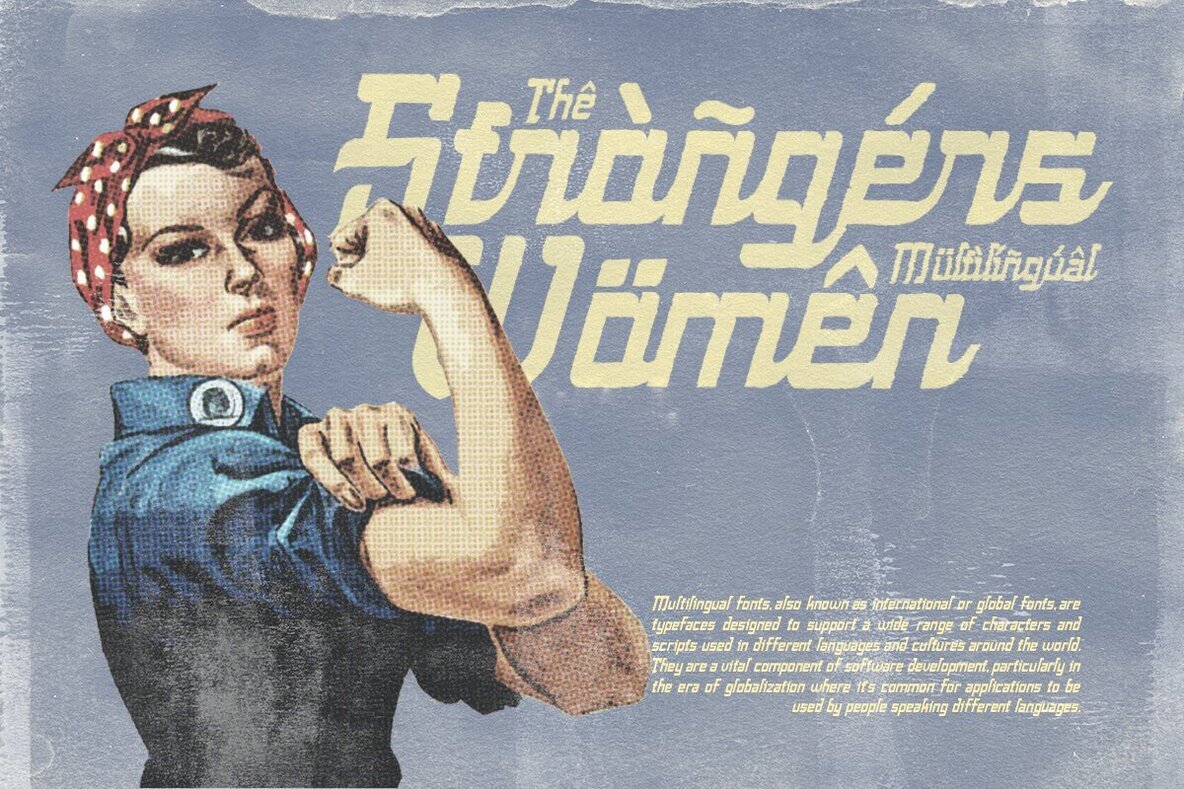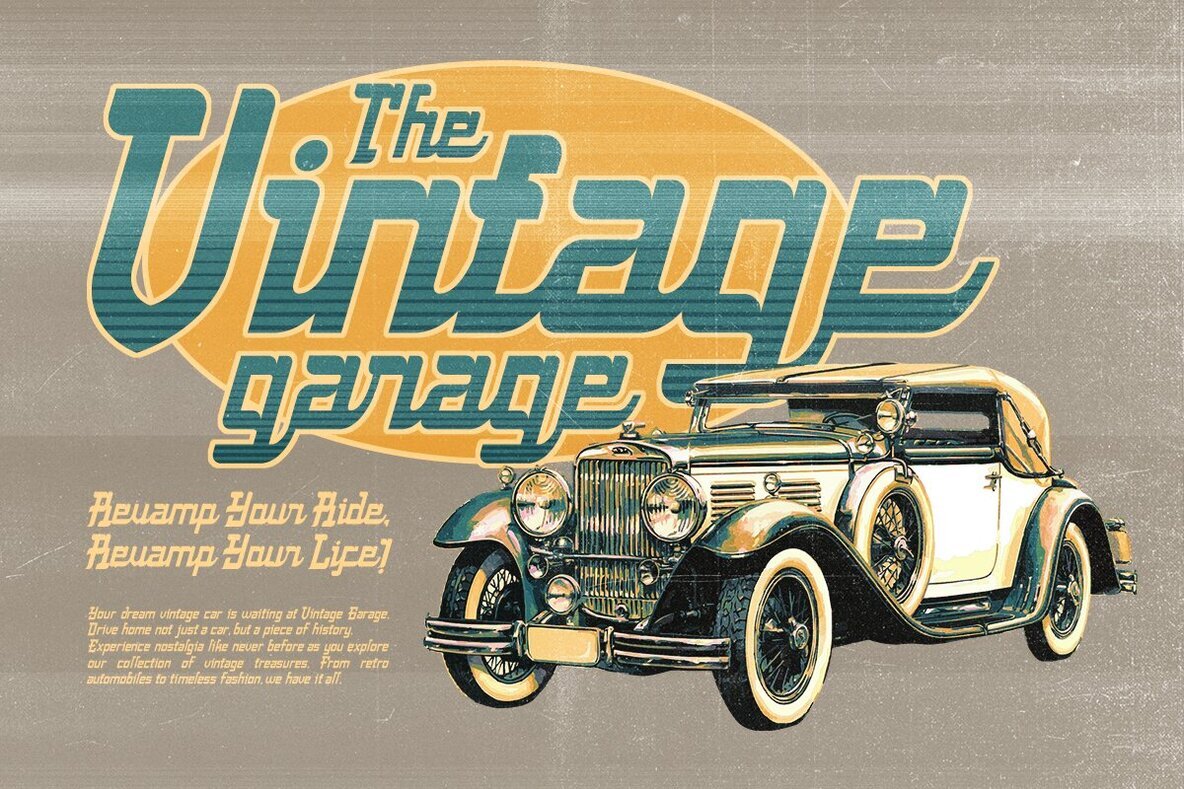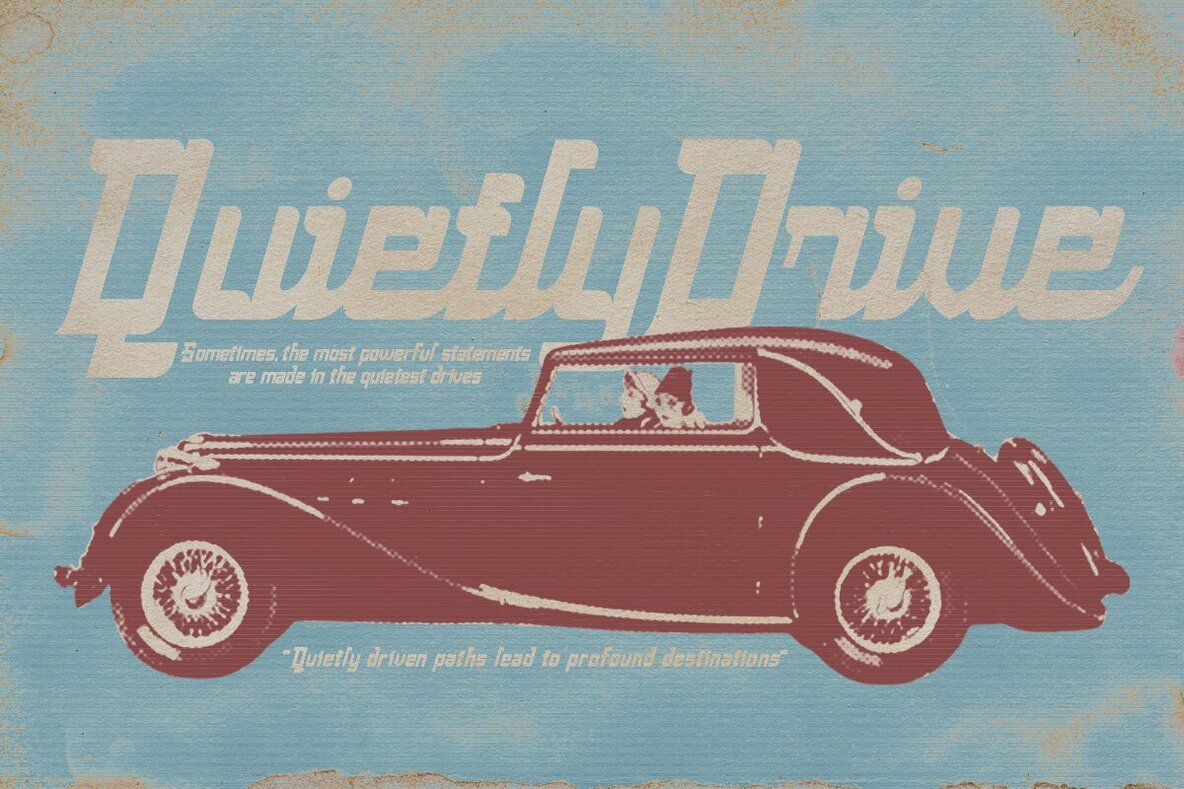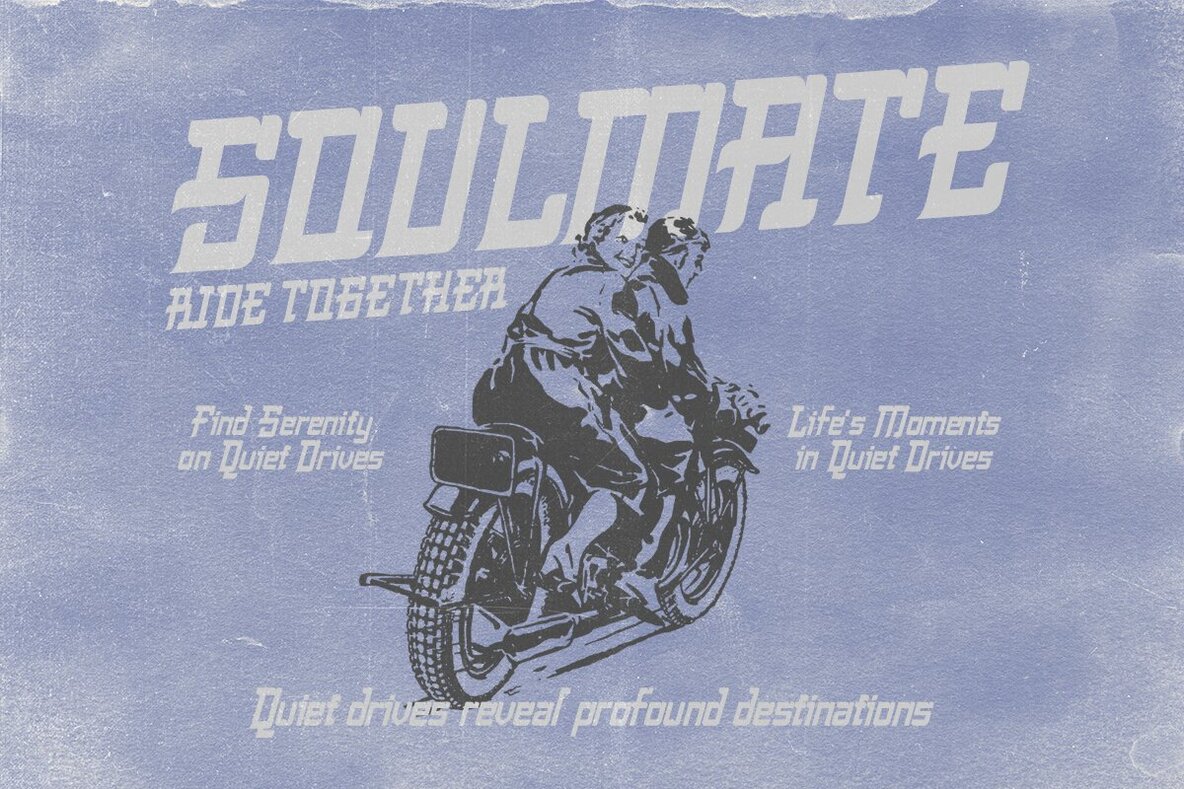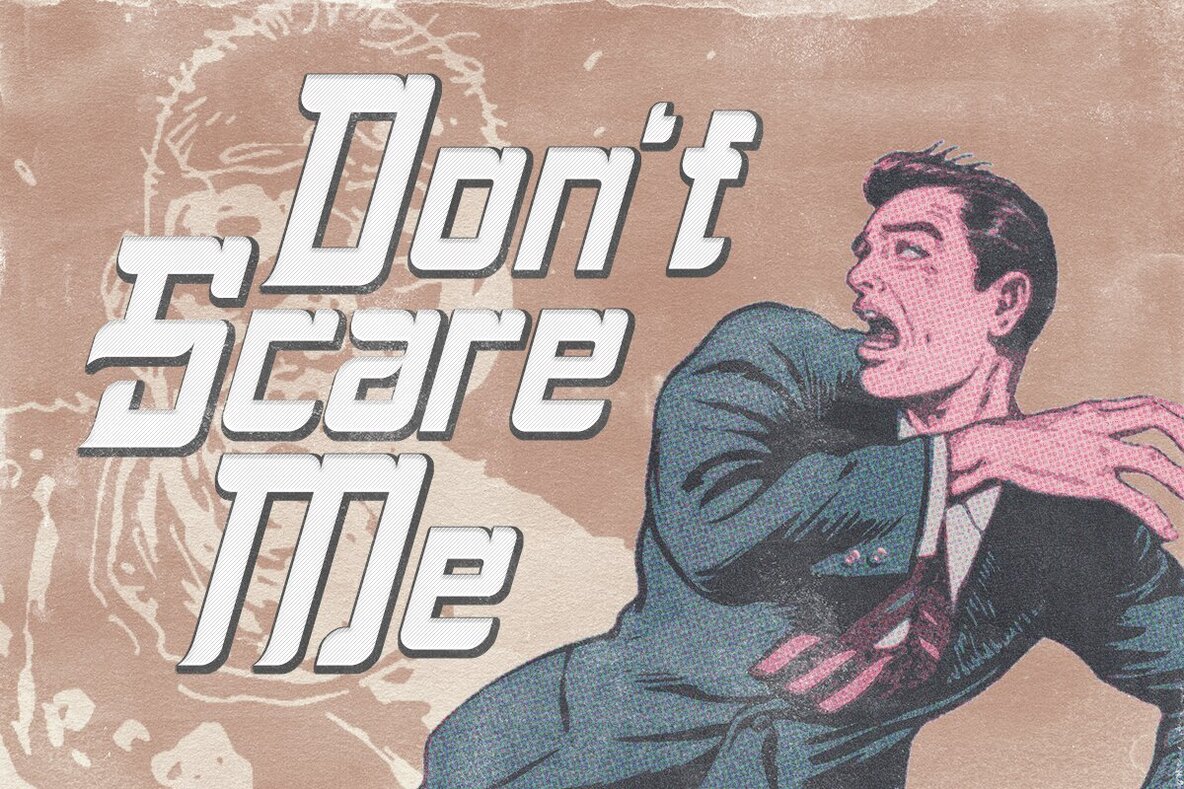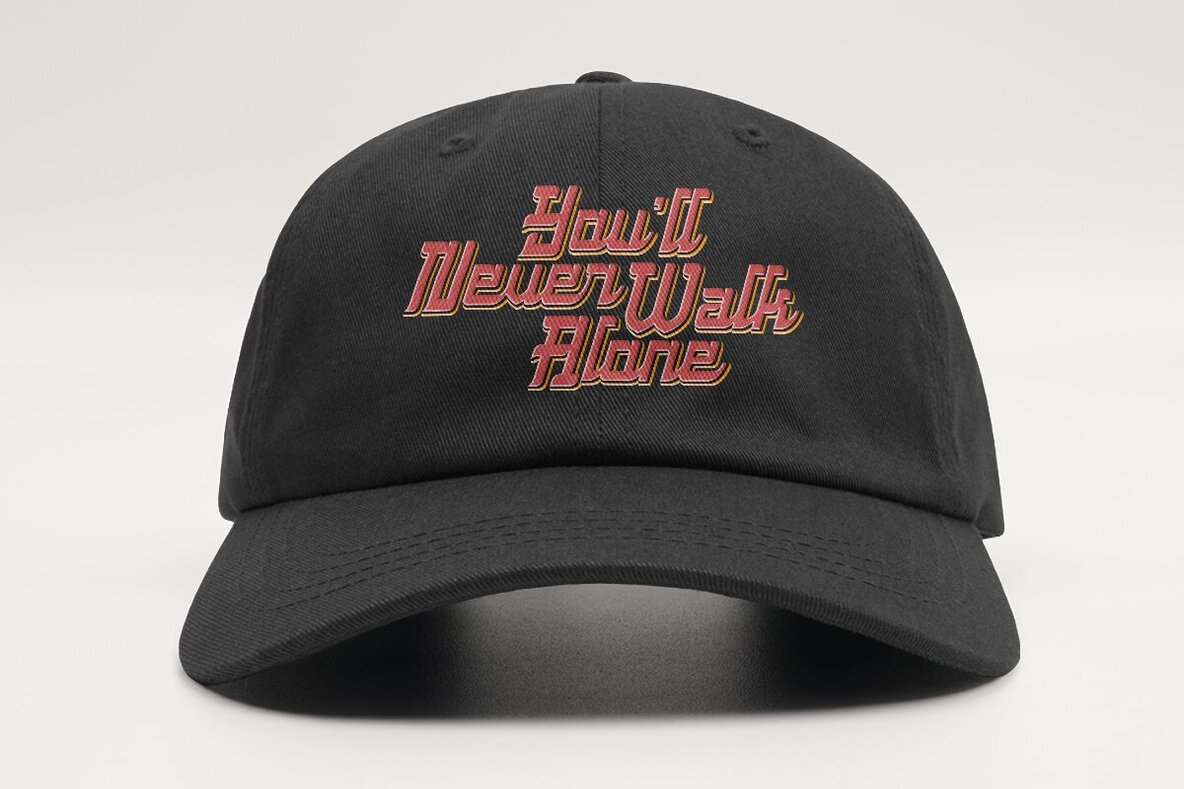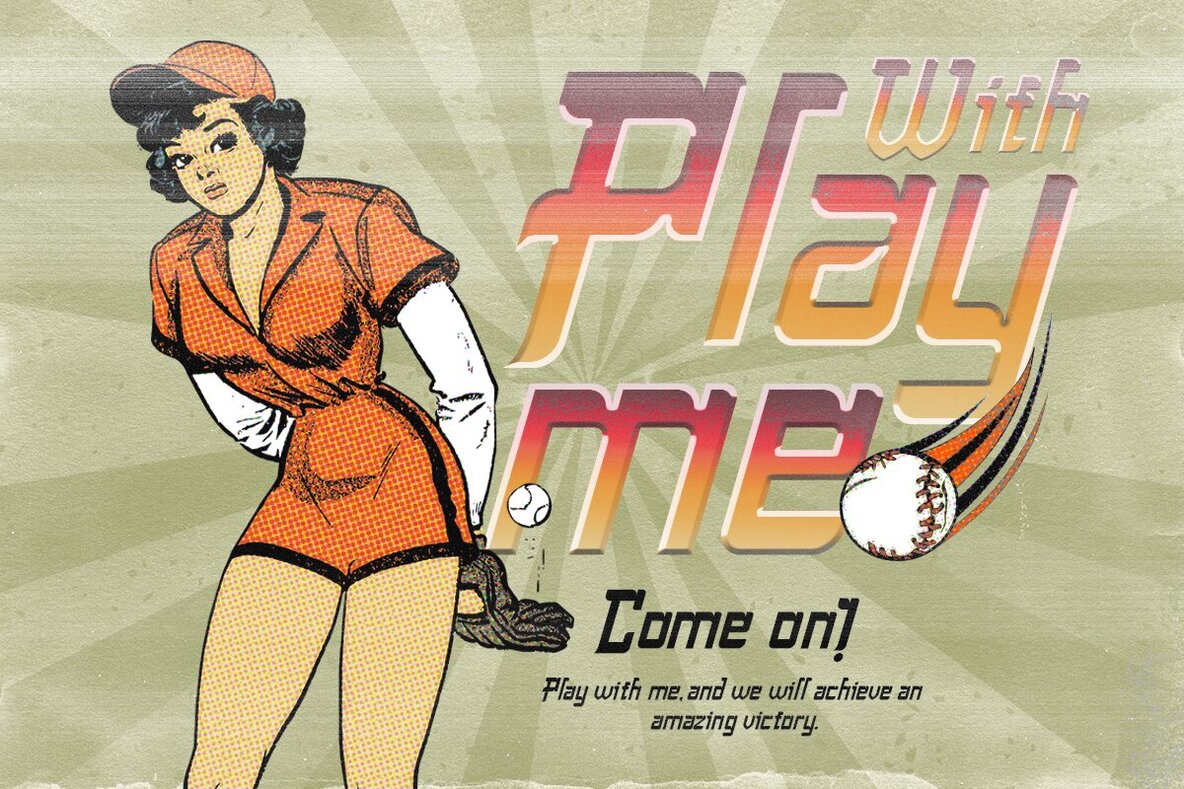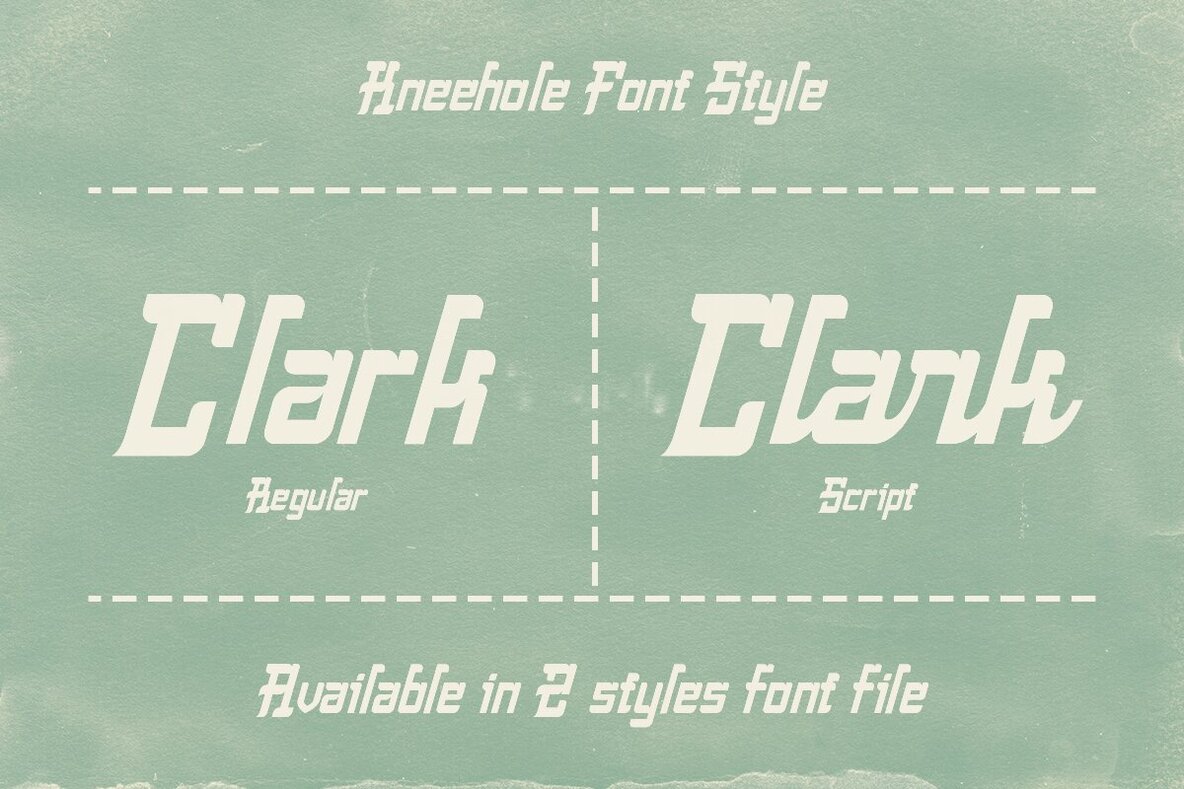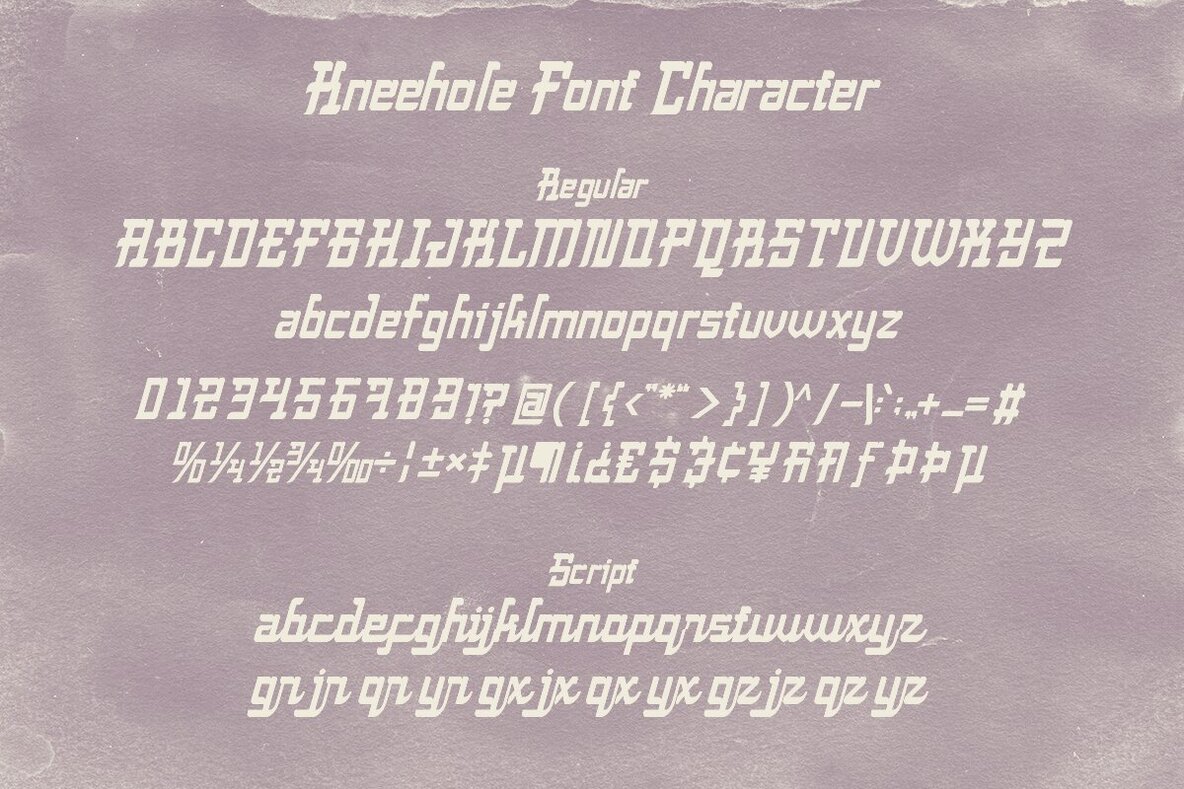
Kneehole Font
Kneehole Regular
Kneehole Script
Kneehole is a captivating font that encapsulates the essence of vintage and retro charm, with a distinctive square-shaped letter design. With two styles available for each type - Regular and Script, Kneehole is your ideal choice for crafting logos, signboards, or elegant wordmarks. This font draws inspiration from the iconic typography trends of the late 60s and throughout the 70s, adding a touch of nostalgic flair to your creative projects.